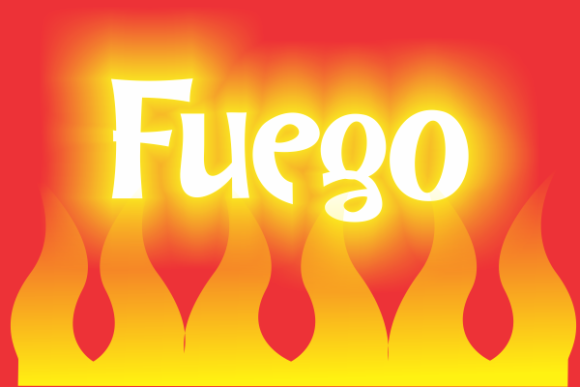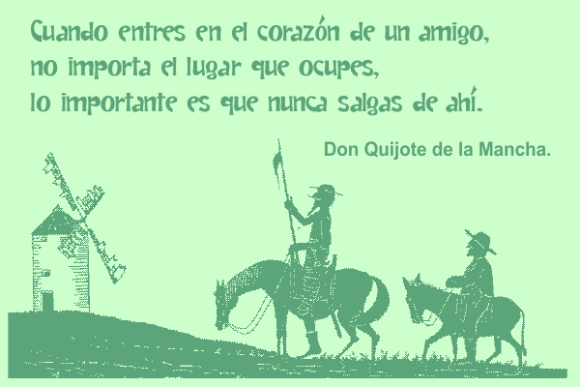
Discover the Delightful Andrea Karime Font: A Personal Story and Design Guide
As a designer and crafty hobbyist, I’ve had my fair share of font struggles. I recall working on a project for my daughter’s birthday, wanting to create a custom invitation that would make her feel like a princess. I scoured the internet for the perfect font, but nothing seemed quite right. That’s when I decided to take matters into my own hands and create a font that I thought would be perfect for her – and that’s how the Andrea Karime font was born.
The Andrea Karime Font: A Personal Creation
Andrea Karime is a font that I see as perfect for girls or teenagers… I designed it for my daughter. Due to its shape, it is not suitable for use in long texts… I think it is better for titles or logos. It does not have many symbols, but it has the 28 main letters… (includes the Ñ) and the numbers. This charming font is ideal for adding a touch of personality to your designs, and I’m excited to share its story and guide you on how to use it.
- Adorable and feminine design, perfect for projects targeting a young audience ✅
- Easy to read and recognize, even at smaller sizes 📚
- Includes the Spanish letter Ñ, making it a great choice for bilingual designs 🇪🇸
- Numbers are clear and legible, making it suitable for titles and headings with numerical elements 📊
- Limited character set, which might not be suitable for long texts or projects requiring a wide range of symbols ⚠️
- Not ideal for body text or paragraphs, as it might get tiresome to read 📖
A Practical Guide: Using Andrea Karime in Your Designs
As I designed Andrea Karime, I drew inspiration from my daughter’s bubbly personality and love for all things sweet. I wanted to create a font that would capture her essence and make her feel special. The result is a font that’s perfect for designers and crafters who want to add a touch of whimsy and fun to their projects.
| Author | Raul Andres Perez Canseco |
| What is the Andrea Karime font best suited for? | The Andrea Karime font is best suited for titles, headings, and logos, particularly for projects targeting a young audience. |
| Is the Andrea Karime font suitable for long texts? | No, due to its design and limited character set, Andrea Karime is not ideal for long texts or body paragraphs. |
| Does the Andrea Karime font include numbers? | Yes, the Andrea Karime font includes clear and legible numbers. |